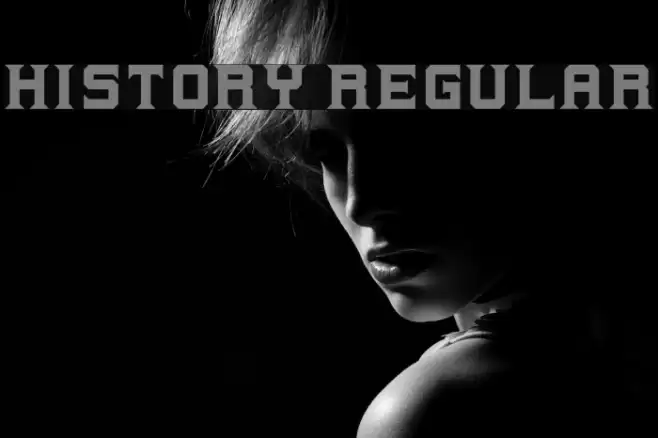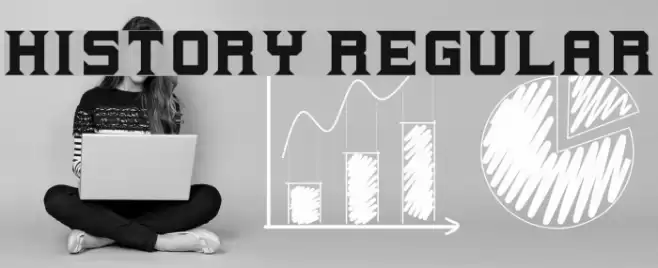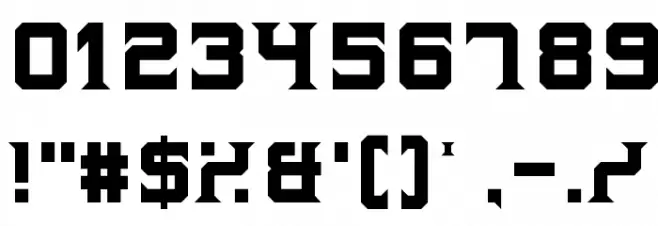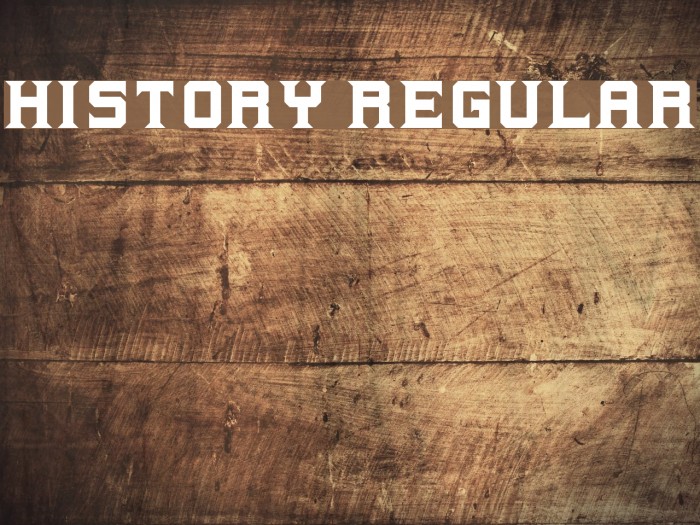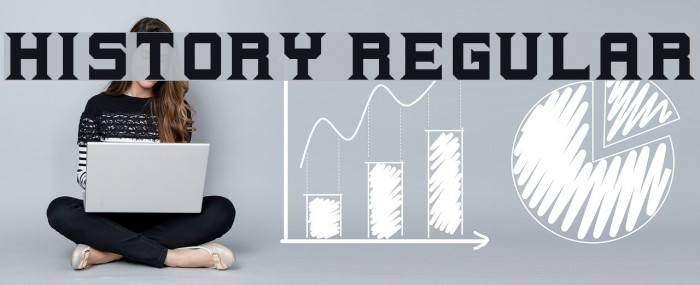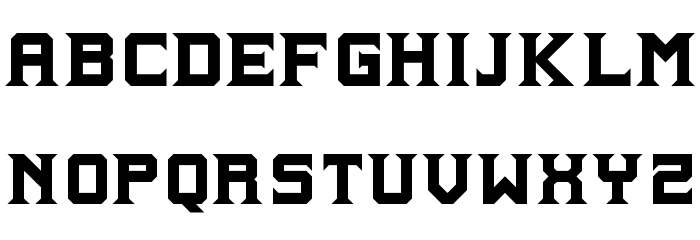
History Regular Font
History Regular Description
This font features a bold and striking design with angular, geometric shapes that give it a strong, authoritative presence. The characters are crafted with sharp edges and a consistent thickness, creating a uniform and cohesive look. The uppercase letters are particularly prominent, with a blocky aesthetic that commands attention. The numerals and special characters maintain this robust style, ensuring clarity and impact. This font's design is reminiscent of industrial or military themes, making it suitable for projects that require a bold and assertive typeface.
A bold, geometric font with sharp, angular shapes and a strong presence from Uncategorized fonts.
- Proposed Projects: Ideal for branding, posters, headlines, and any design requiring a bold, impactful typeface.